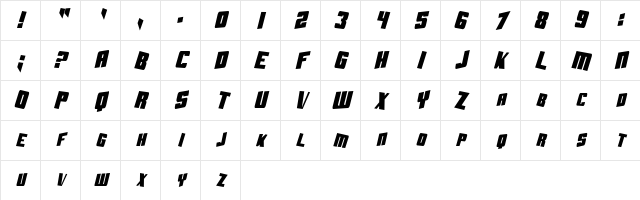
Aftershock Debris CondSolid Italic Free Font
Aftershock Debris CondSolid Italic
Design Context for Aftershock Debris CondSolid
Aftershock Debris CondSolid is a composed and adaptable typeface that performs quietly and consistently across a wide range of design contexts. The slanted form adds forward momentum and visual energy. Its narrow stance lets it pack a punch even in space-constrained designs.
Pro Tip: Use Aftershock Debris CondSolid for emphasis, pull quotes, and subheadings where its slanted energy can add rhythm to the layout.